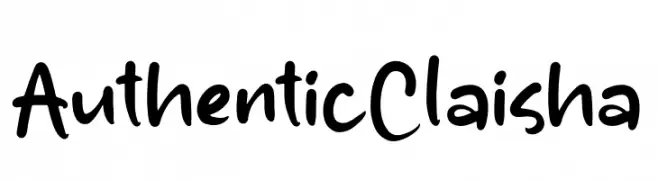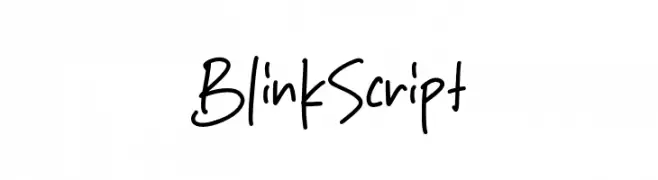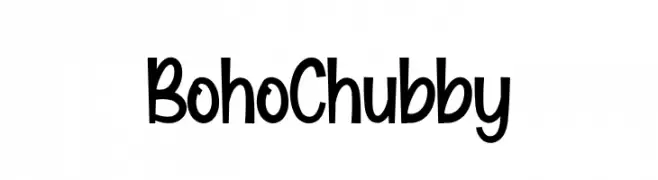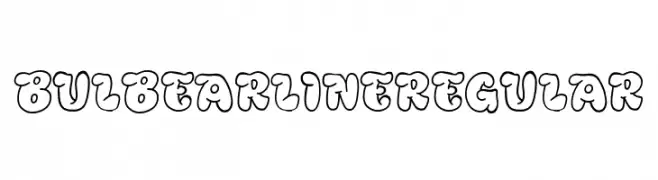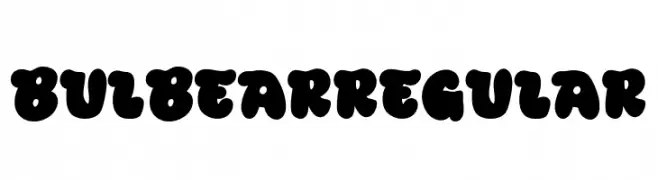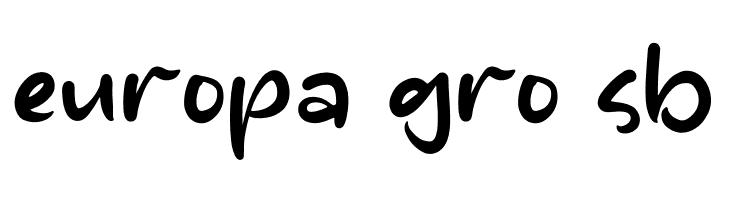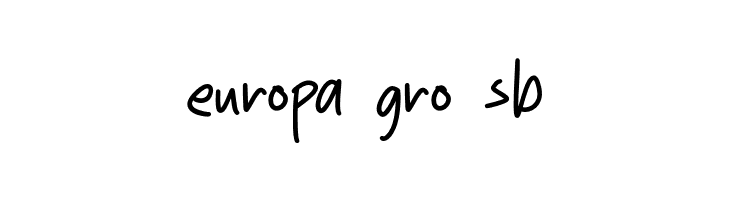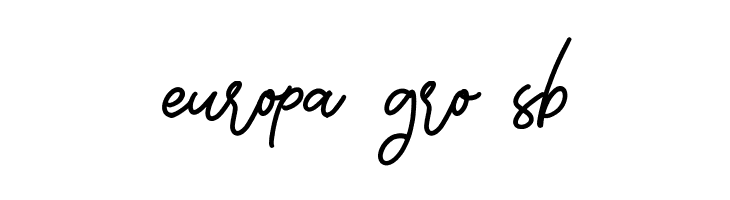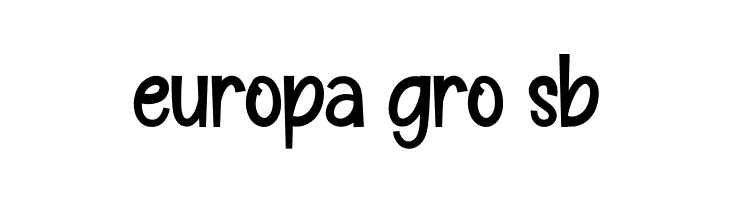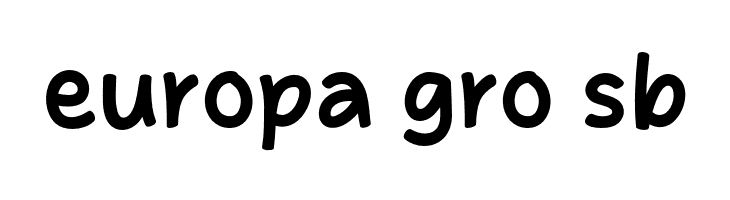
• Authentic Claisha
( Fonts by Integritype Studio )
A playful, handwritten-style font with bold, rounded strokes and a casual, energetic vibe.
• Blink Script
( Fonts by MJType )
A casual, handwritten font with a playful and dynamic style.
• Boho Chubby
( Fonts by Scratchones )
A playful, bold, and rounded font with a whimsical style.
• Bulbear Line Regular
( Fonts by Eko Bimantara )
Playful, outlined decorative font with bubble-like characters.
• Bulbear Regular
( Fonts by Eko Bimantara )
Bold, playful font with rounded characters.
• Cute Sunrise
( Fonts by MJType )
A playful, rounded font with a hand-drawn feel and friendly appearance.
• Five Times
( Fonts by Aji Waluyo )
Bold, playful script font with a handwritten style.
• Howdy Monkey
( Fonts by Khurasan™ )
Playful, bold, hand-drawn font.
• Jager
( Fonts by Maulana Creative )
An elegant script font with flowing, connected strokes and decorative swashes.
• Jekteam
( Fonts by Khurasan™ )
Playful handwritten font with bold, irregular shapes.